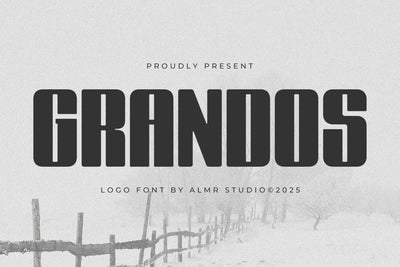
Grandos - Logo font
Introducing Grandos - Logo font. Grandos is a display san serif font, This type of font is very suitable for your various needs such as branding projects, logos, social media posts, advertisements, labels, product packaging, photography, wedding designs, watermarks, invitation product designs, stationery, and any project.